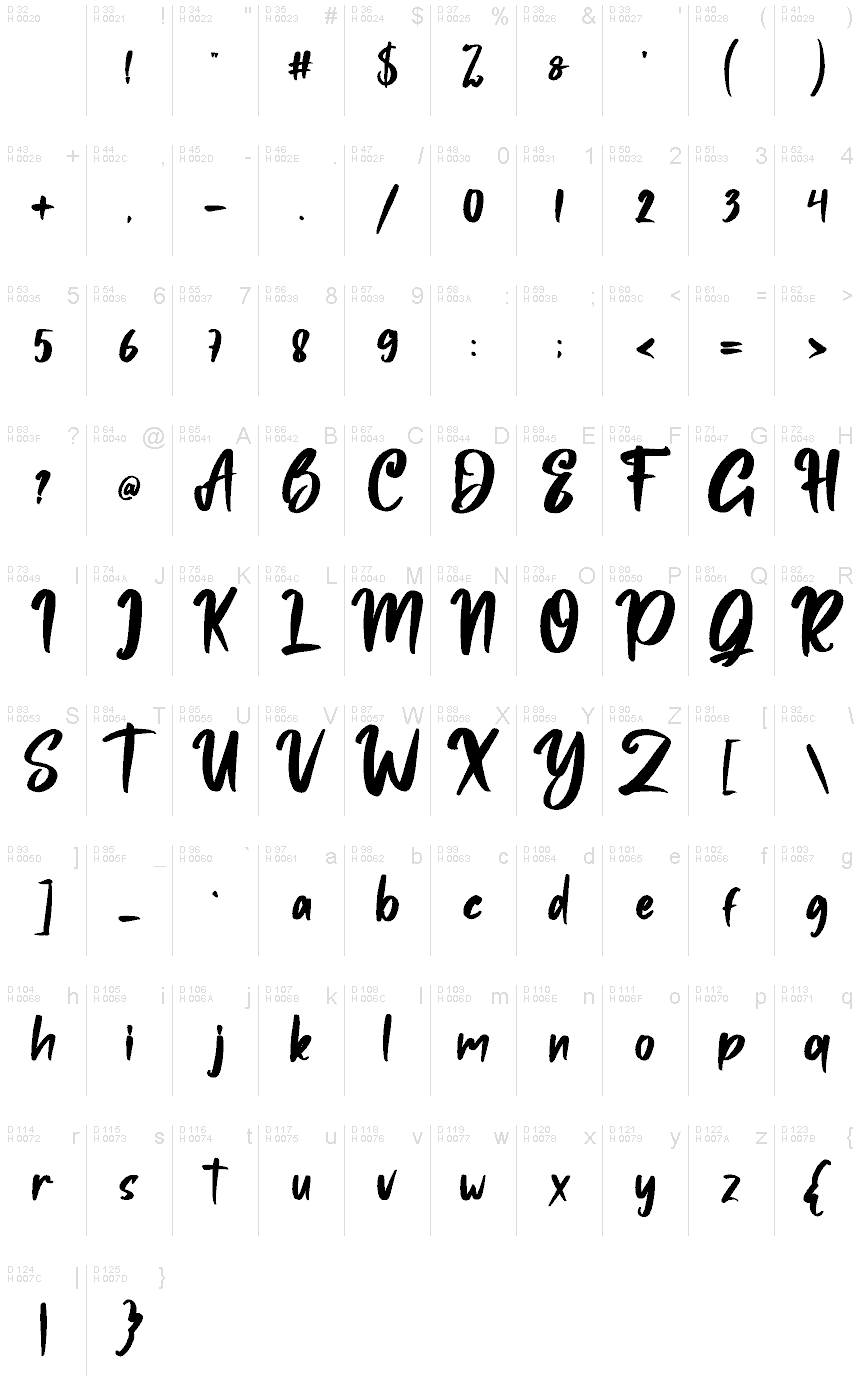
Batrade
Batrade is a stylish brush font crafted by Skiiller Studio, inspired by both bold handwritten typography and art journaling. Its thick strokes have an inviting aesthetic that is suited to a variety of use cases, from logo design, branding, and packaging design projects to social media posters and web banners.
This typeface is characterized by strong contrast between thin and thick strokes and its contemporary aesthetic is ideal for branding projects that target a younger audience. It also makes an excellent choice for poster design, postcards, branding projects, and packaging design, and can be used in the online and print media, to create unique and striking typography art.